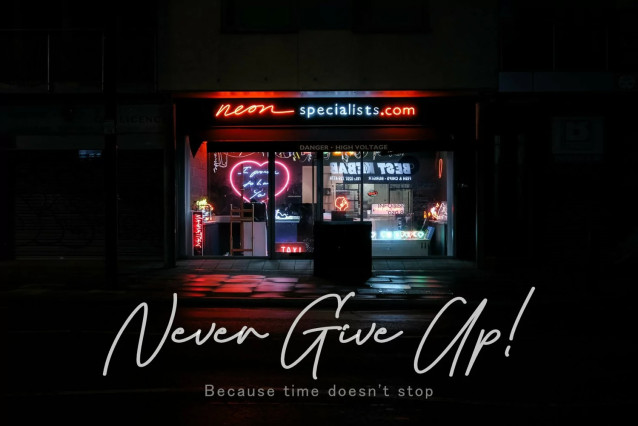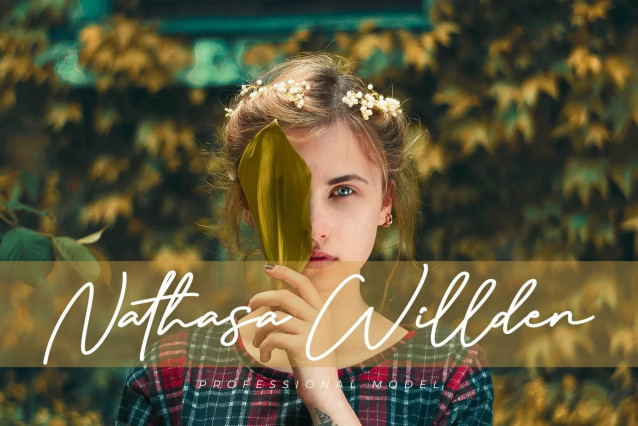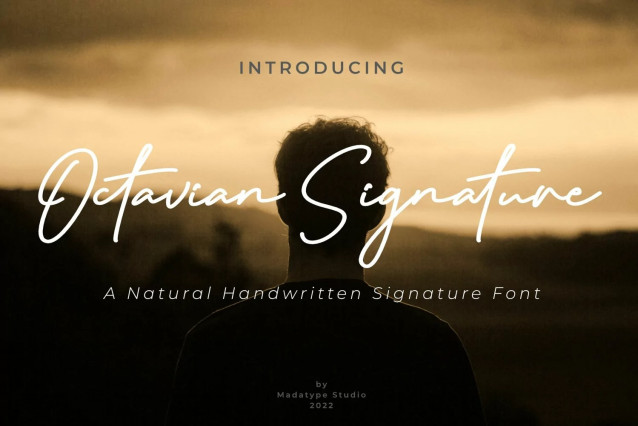
Octavian Signature Font
Octavian Signature Font, a stunning signature script font with a unique style. This font features beautiful ligatures that will make your design stand out. Whether you need a font for branding, wedding, or social media, Octavian Signature is the perfect choice. Get Octavian Signature font now and start creating amazing designs!